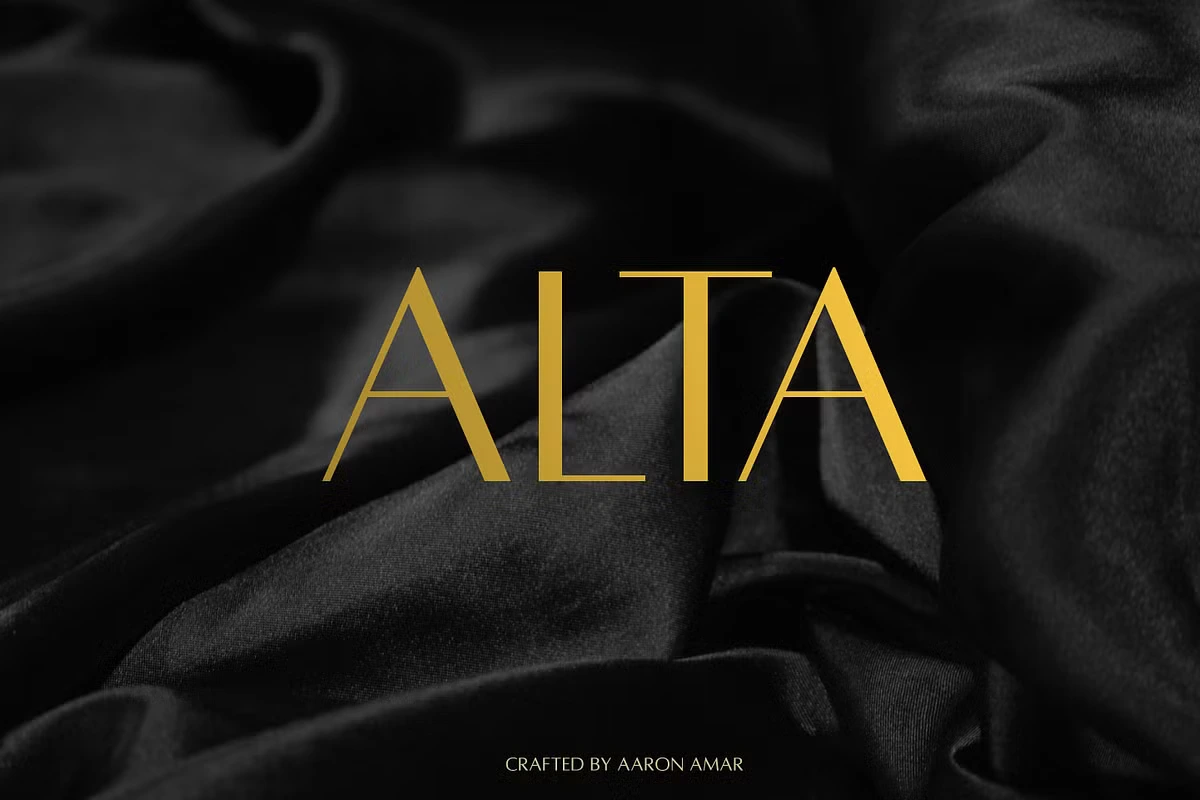
Alta Font
Alta Typeface is a stylish and modern sans-serif, all-caps display font inspired by the elegance of the Optima typeface, originally designed by Hermann Zapf. With its balanced proportions and humanist touch, Alta Typeface brings a refined yet contemporary feel to any design. Its clean and sophisticated look makes it perfect for both digital and print projects, ensuring versatility across various creative applications.
Whether you’re designing greeting cards, branding materials, business cards, quotes, or posters, Alta Typeface enhances your work with a professional and timeless appeal. This font package includes three variations—Regular, Light, and Caption—giving you the flexibility to achieve the perfect look for any project. Download Alta Font for free and elevate your design today!